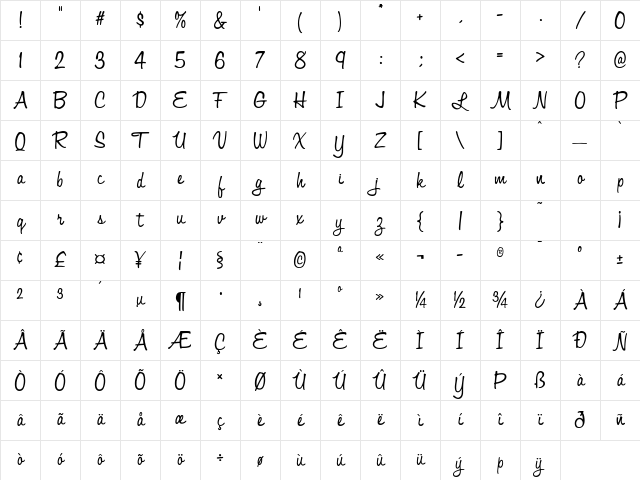
Marilyn Regular
Design Context for Marilyn
Marilyn is a composed and adaptable typeface that performs quietly and consistently across a wide range of design contexts.
Pro Tip: Use Marilyn in both headline and body roles to test its range before committing to a single application.